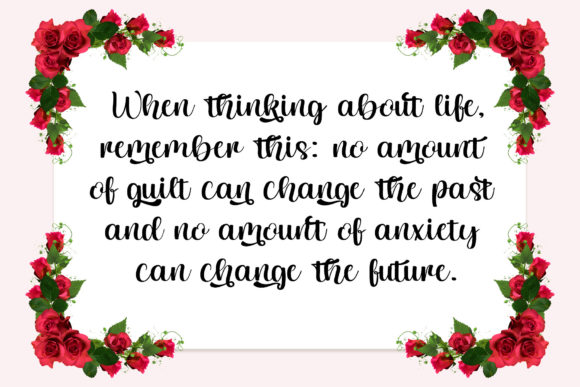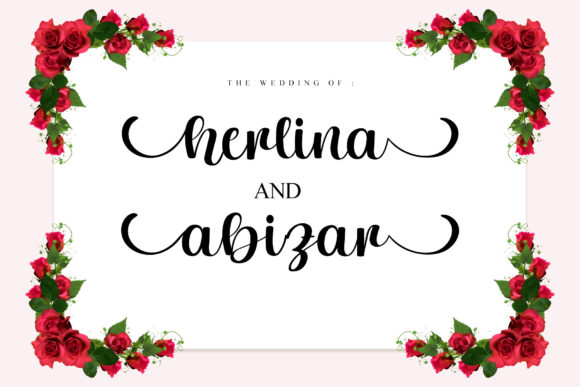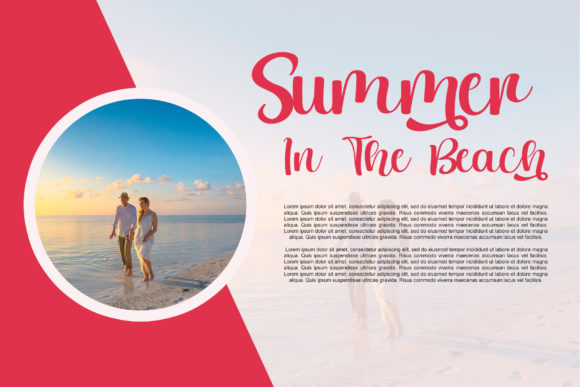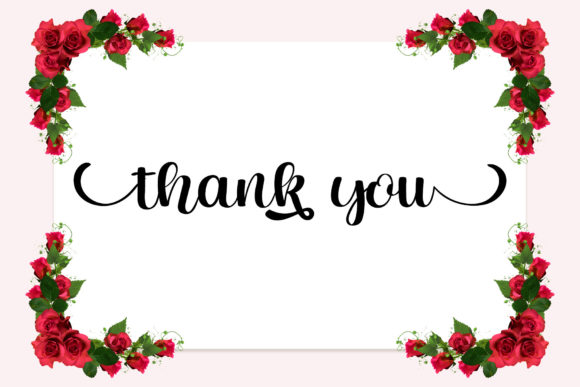
Smile Rihana Font
Smile Rihana is a flowing handwritten font, described by an elegant touch, perfect for your favorite projects. This font is PUA encoded which means you can access all of the glyphs and swashes with ease!